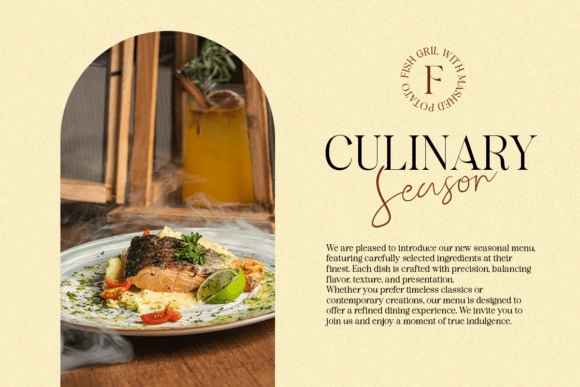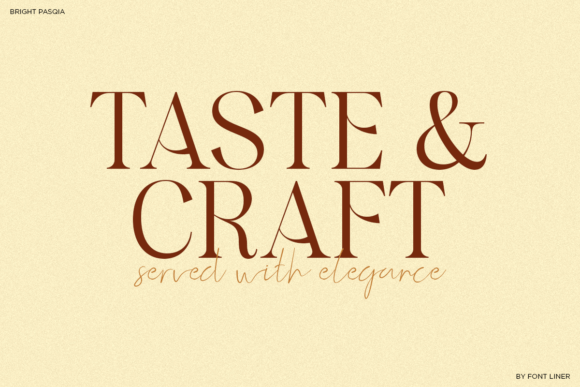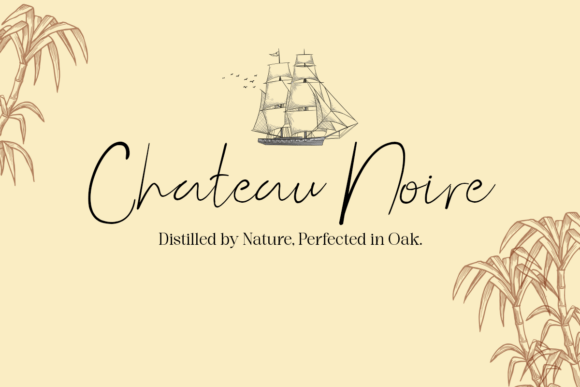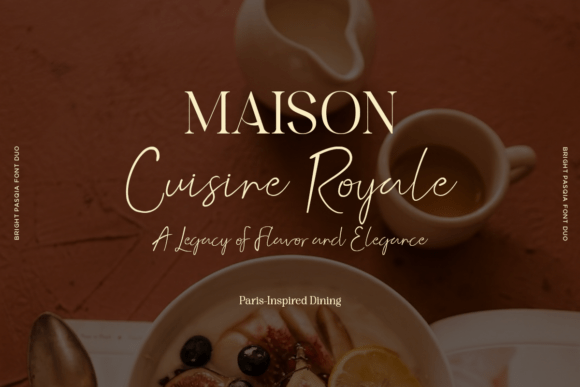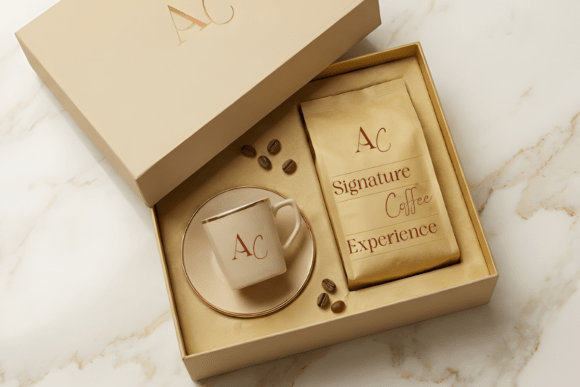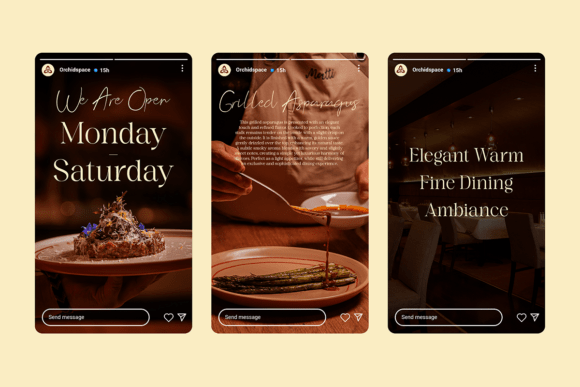
A Creative Moment of Inspiration
Have you ever stared at a blank page, waiting for the perfect font to bring your design to life? It’s a moment we’ve all experienced as creatives. But what if that perfect font was within reach? Introducing the Bright Pasqia Font, a sophisticated duo that seamlessly blends the elegance of a modern serif with the softness of a handwritten script.
Designed for versatility, Bright Pasqia Font is perfect for designers seeking to create refined yet personal aesthetics. Whether you’re crafting a luxury brand, designing wedding invitations, or creating editorial layouts, this font duo excels in bringing warmth and elegance to your visual storytelling. By incorporating Bright Pasqia Font into your designs, you’ll add a touch of sophistication and charm that sets your work apart from the rest.
Bright Pasqia Font Key Features
- Unique Characteristics: The font features a unique, hand-drawn design with a bright and playful feel, making it ideal for use in creative and artistic applications.
Bright Pasqia Font Review
Overall, I’m quite impressed with the Bright Pasqia Font. It’s a great choice for anyone looking to add a touch of modernity to their design projects. ✨
- Unique Character**: Bright Pasqia Font stands out with its distinctive, playful style that adds a lot of personality to any text.
- Highly Legible**: The font is incredibly easy to read, even at smaller sizes, making it perfect for digital applications.
- Customization Options**: The font family offers a range of weights, styles, and sizes, allowing for a lot of creative freedom.
However, there are a few limitations to consider. ⚠️
- Limited Compatibility**: Bright Pasqia Font may not be compatible with all operating systems or devices, which could cause issues with consistency.
- Not Ideal for Body Text**: Due to its unique style, Bright Pasqia Font may not be the best choice for large blocks of body text, where readability is crucial.
Overall, I’d highly recommend Bright Pasqia Font for any design project where you want to add a touch of personality and modernity. Just be aware of its limitations, and use it thoughtfully to get the best results.
Tips for Getting the Most Out of the Bright Pasqia Font
To get the most out of the Bright Pasqia Font, use it for headings and titles to add a touch of elegance and sophistication to your design. You can also pair it with other fonts to create a unique and eye-catching combination. Experiment with different font sizes, colors, and styles to find the perfect look for your design.
The Bright Pasqia Font is perfect for creating eye-catching headings and titles for business cards, resumes, and marketing materials. It’s also great for adding a touch of elegance to wedding invitations, event programs, and other special occasion materials.